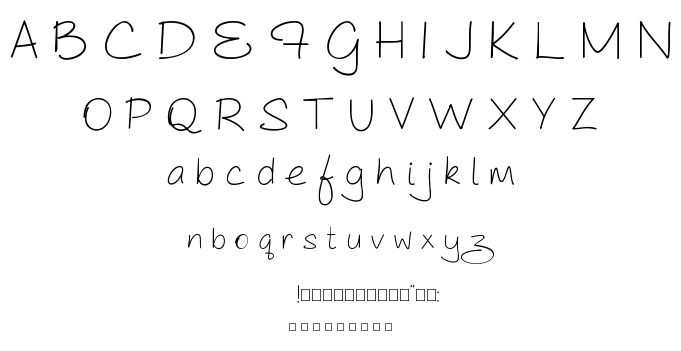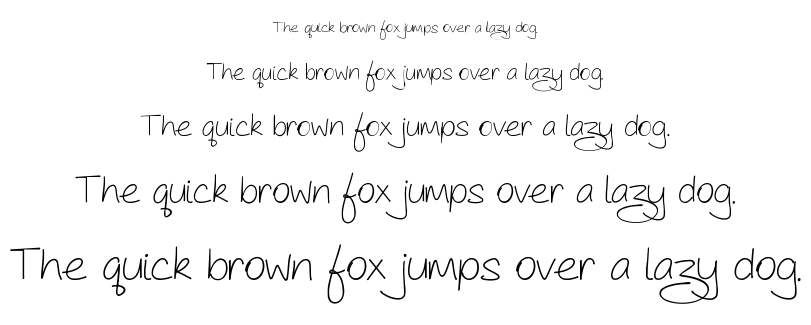
This is the free-to-use demo version of a new handwritten font we are developing, called ‘As Cute As…’ This version contains upper and lower case letters only. Numerals and other characters will be added over the coming weeks.